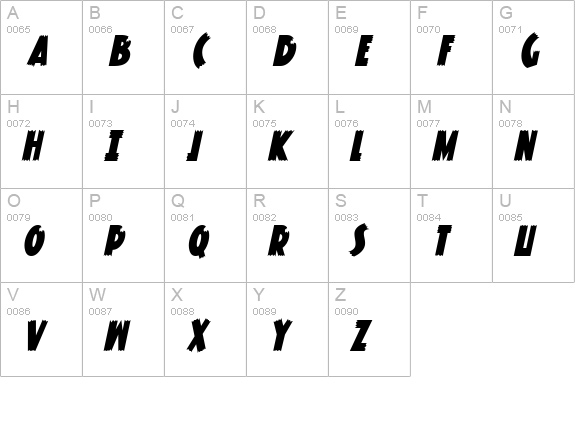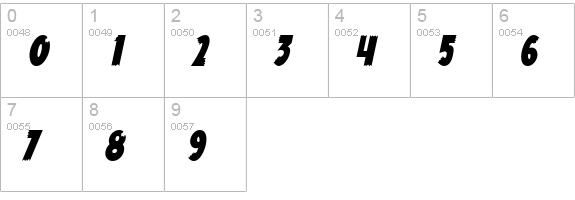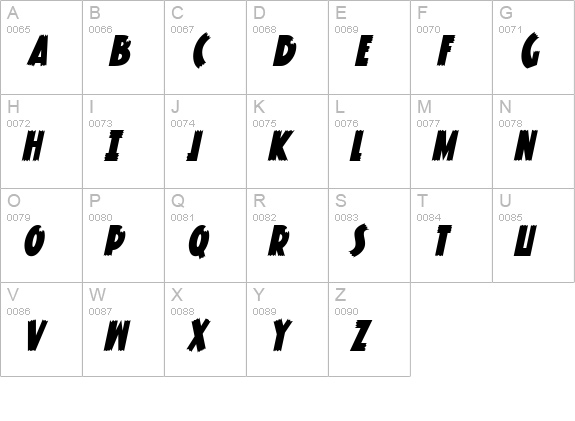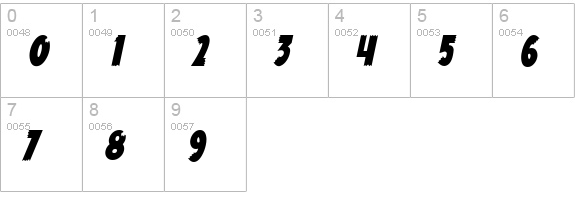
Knuckle Sandwich Classic Italic is a distinctive, italic variant in the Knuckle typeface family \xE2\x80\x94 well suited to design and typography projects.
Knuckle Sandwich Classic Italic is a visually striking and versatile font that adds a touch of elegance and personality to any design project. With its unique mix of boldness and sophistication, this font stands out and makes a statement. The italicized style adds a dynamic and stylish flair to your text, making it perfect for headings, logos, invitations, and more. This font is not only eye-catching but also free to download at FontsMarket.com. So, whether you're a designer looking to enhance your creations or someone in need of a distinctive typeface for personal use, Knuckle Sandwich Classic Italic is the perfect choice. Download it today and let your creativity shine with this exceptional font.